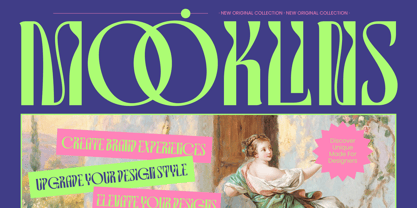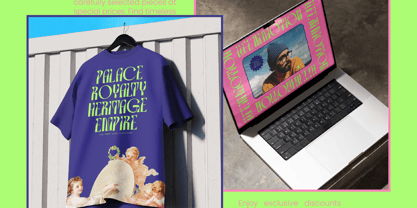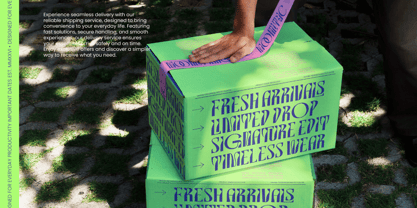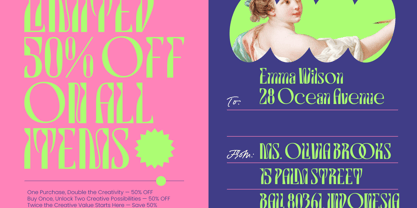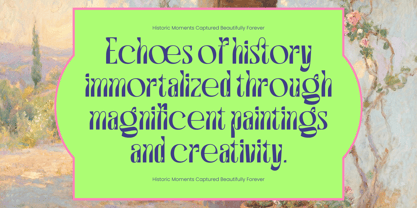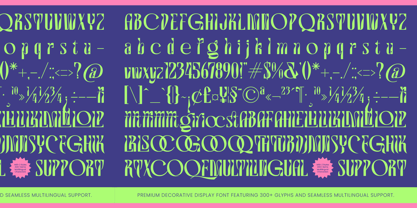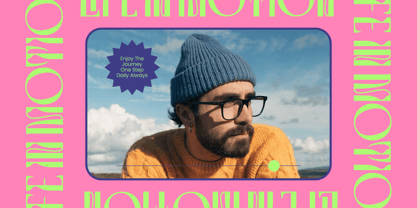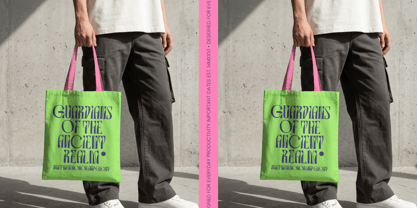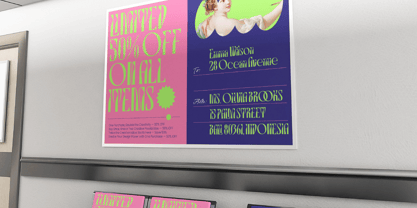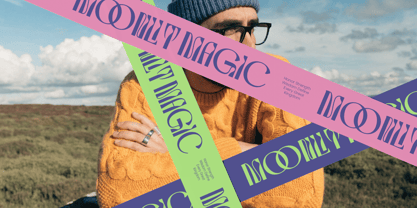
Mooklins
Elevate your creative vision with a typeface that embodies artistic fluidness and modern elegance. Mooklins - Decorative Display Font is a masterpiece of contemporary typography, blending high-contrast strokes with organic, flowing forms. This decorative display font captures a unique psychedelic aesthetic while maintaining a sense of luxury and sophistication. It is designed to command attention and transform standard layouts into bold visual statements.